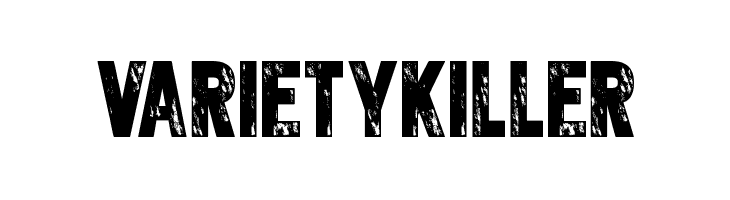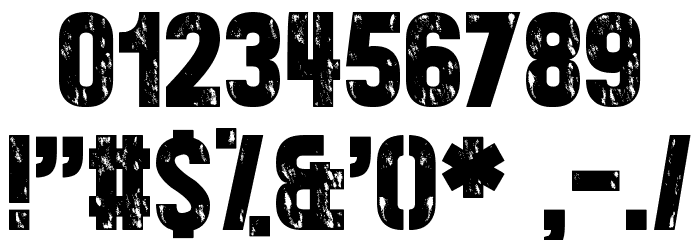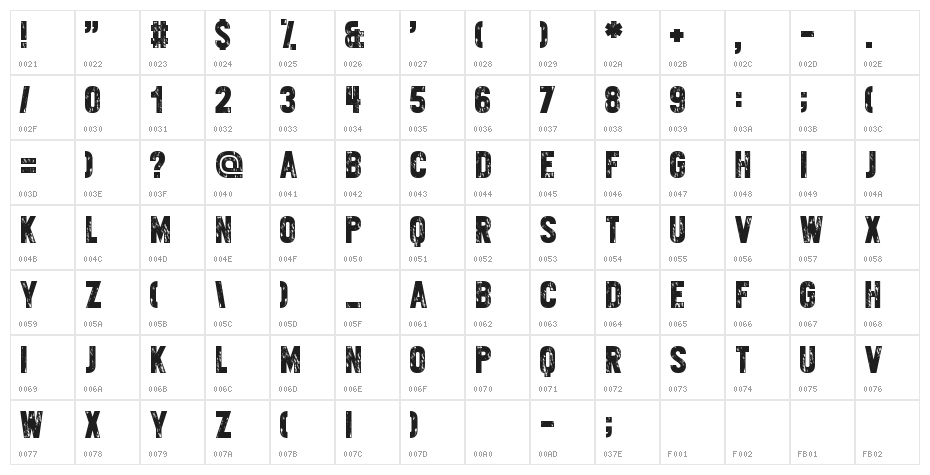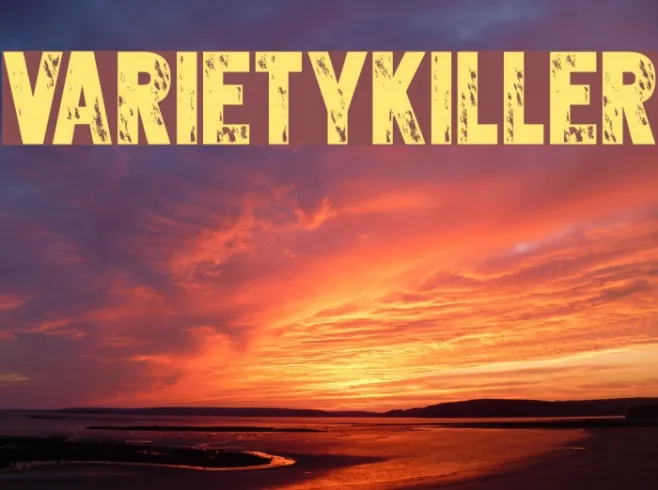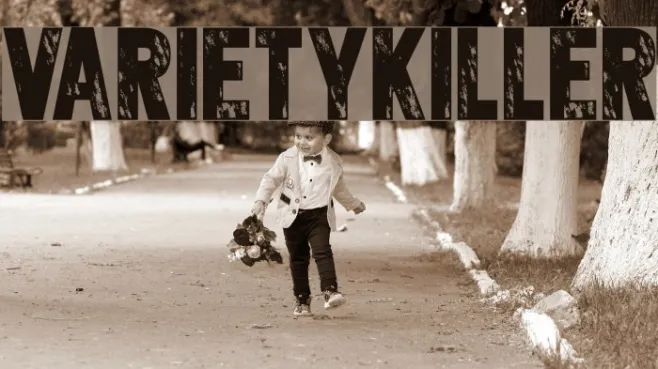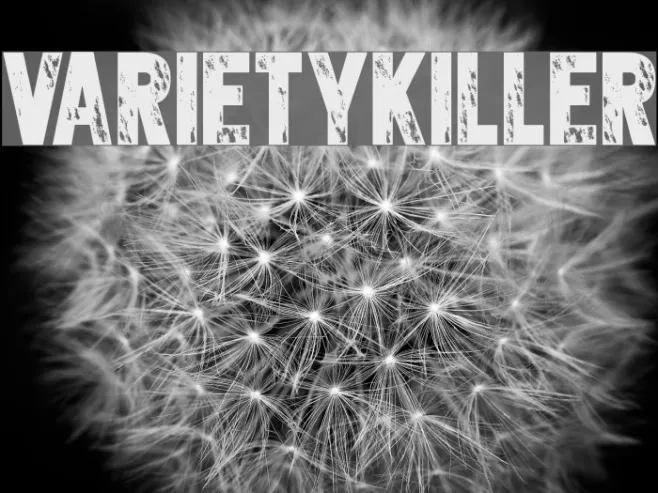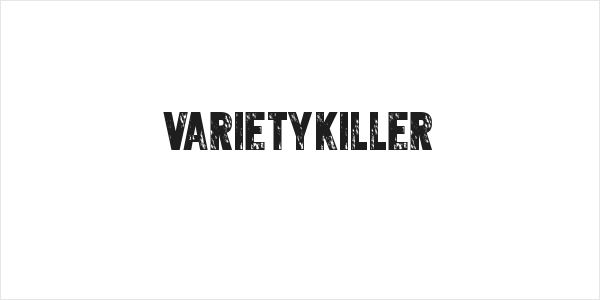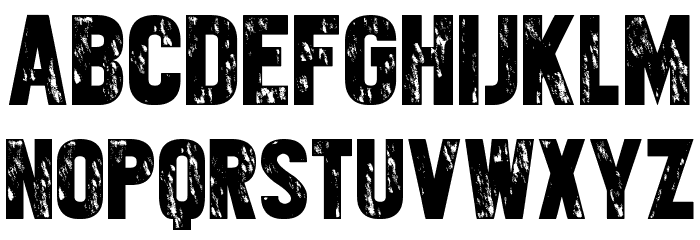
Varietykiller Font
Varietykiller Description
This font features a bold, distressed style with a textured appearance that gives it a rugged, worn look. The characters are uppercase and numerals, with a consistent height and width, creating a uniform and impactful presence. The distressed effect is achieved through irregular patches and scratches, adding a vintage and grunge aesthetic. This style is reminiscent of old, weathered signage or print, making it ideal for projects that require a strong, edgy, and eye-catching design. The font's boldness ensures it stands out, while the distressed texture adds character and depth.
Overall StyleVintage
Proposed ProjectsIdeal for posters, album covers, branding for edgy products, or any design needing a vintage or grunge aesthetic.